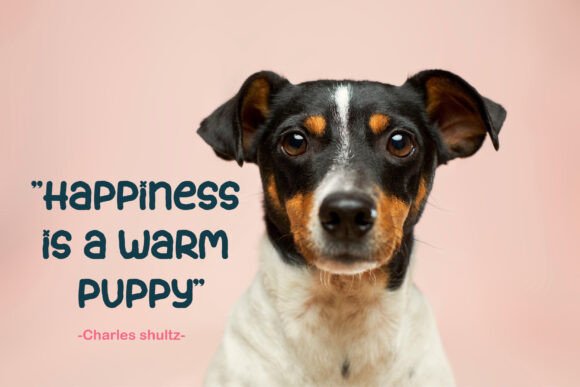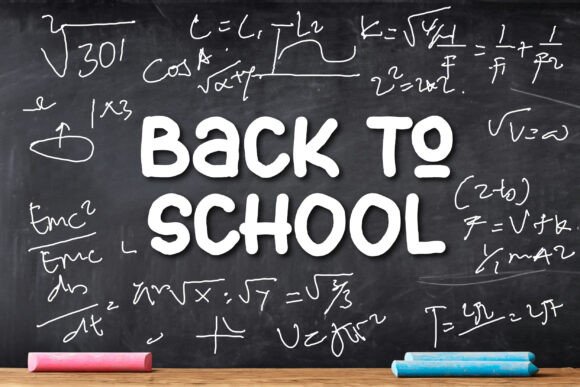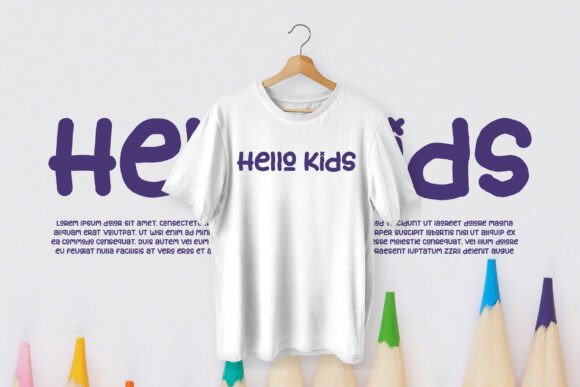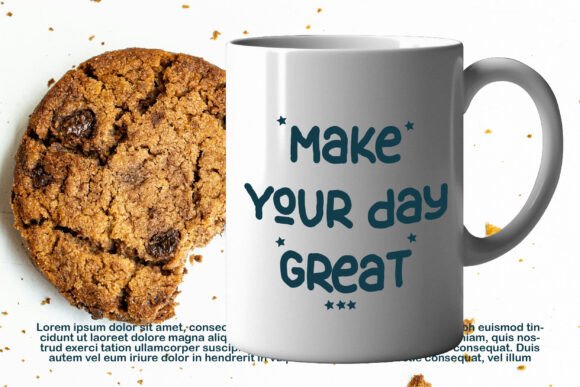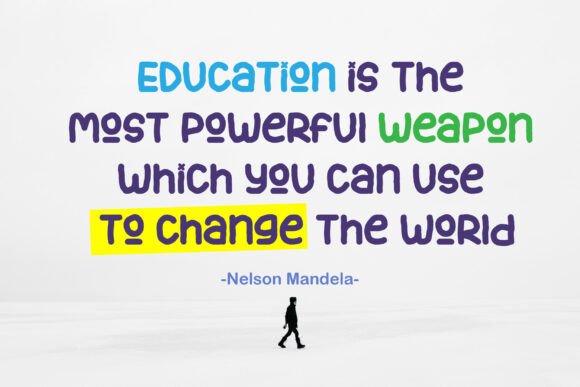
Introduction to Hore Kids Font
Introducing the ‘Hore Kids’ font Amazingly capturing the special flair of a child’s natural handwriting, this is the ideal companion for projects that crave a childlike touch.
Cherish the joy of embracing the innocent and cheerful spirit reflected in children’s handwriting, introducing a genuine and unadorned charm to your artwork The ‘Hore Kids’ font lets you embellish your masterpieces with a unique charm, setting your work apart from the rest.
Key Features of Hore Kids Font
Why Choose Hore Kids Font?